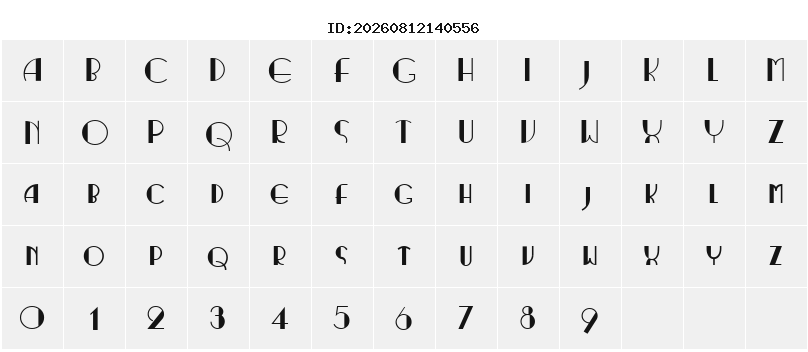
• Font Name: RitzyNormal
• Full Font Name: RitzyNormal
• PostScript Name: RitzyNormal
About RitzyNormal.ttf
RitzyNormal.ttf is a modern, elegant sans-serif font designed for ultimate readability and visual harmony. Perfect for branding, headlines, web design, and print materials.